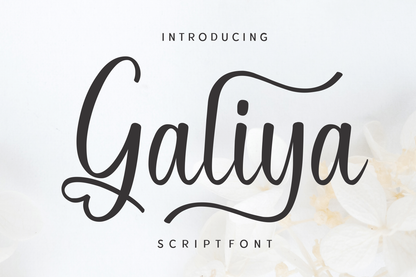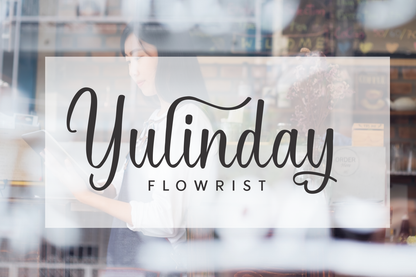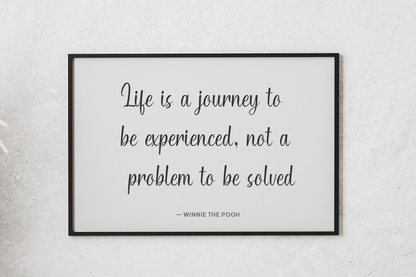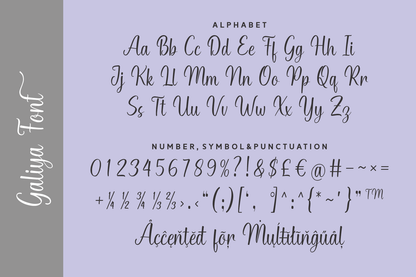
Galiya is a graceful script font that exudes feminine charm and modern sophistication. Its smooth curves and delicate swashes make it a perfect choice for wedding invitations, beauty branding, greeting cards, and elegant logos. Whether used in large headlines or dainty subtext, Galiya delivers a beautifully romantic flair.